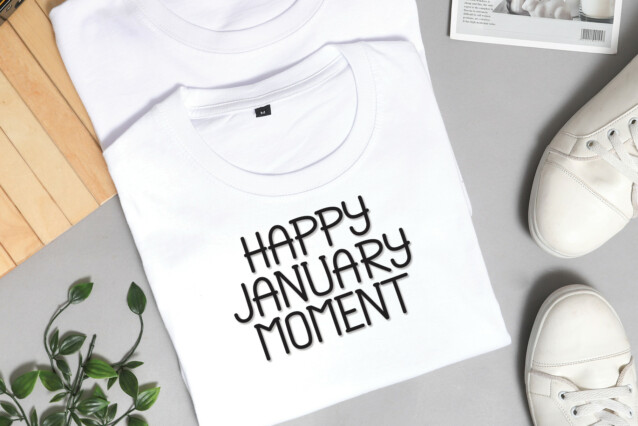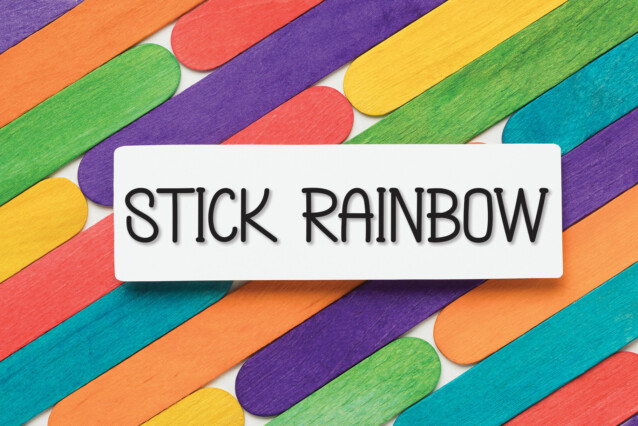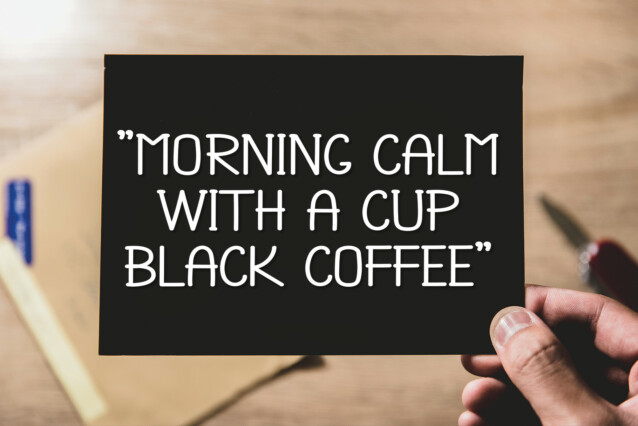
Fresh Honey Display Font
Fresh Honey Display Font is a modern and simple handwritten font. Its latest style letters are perfect for wall displays, wedding invitations, social media posts, logos, advertisements, product packaging, product designs, labels, photography, watermarks, invitations, stationery, and any project that requires handwriting.